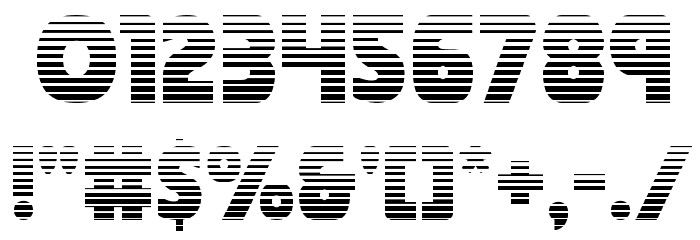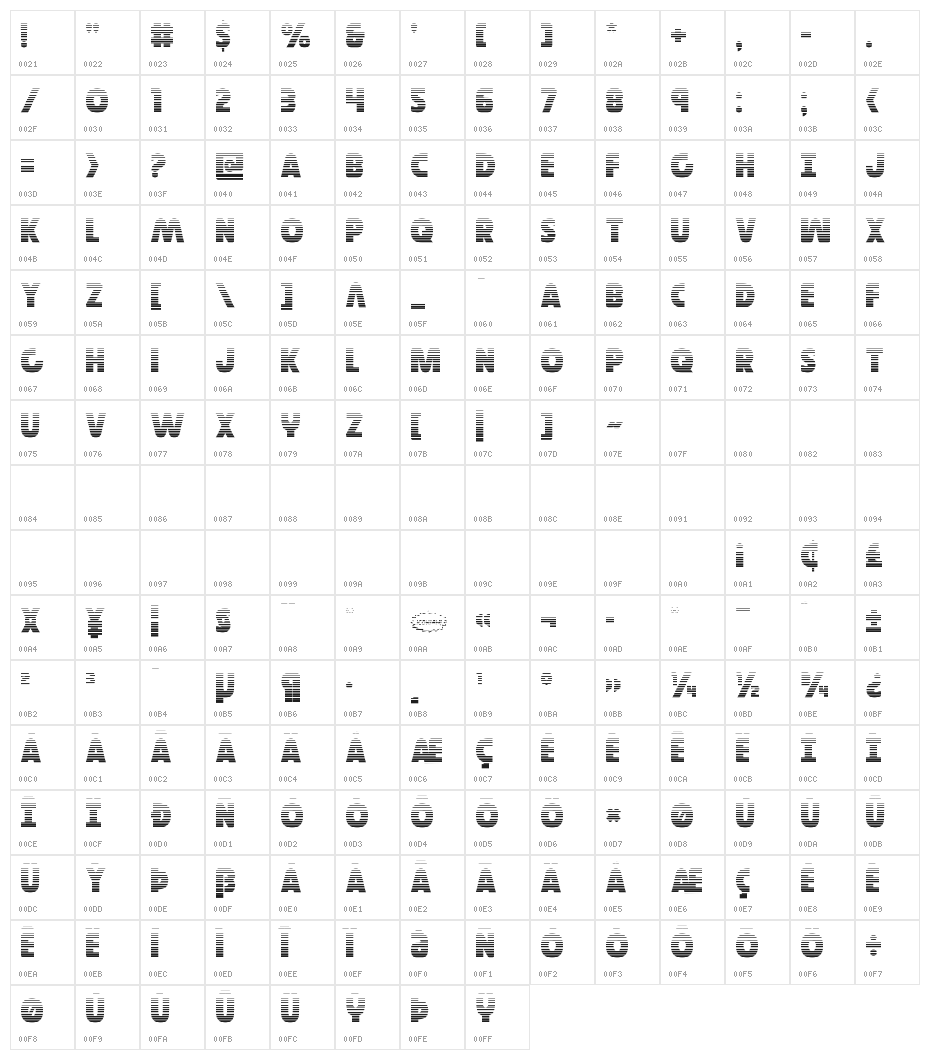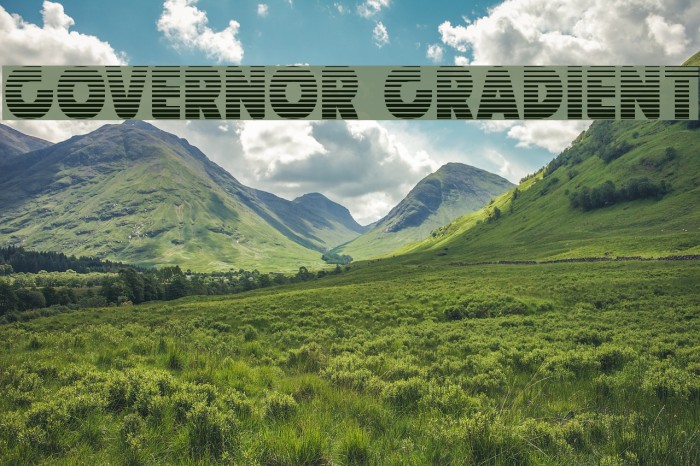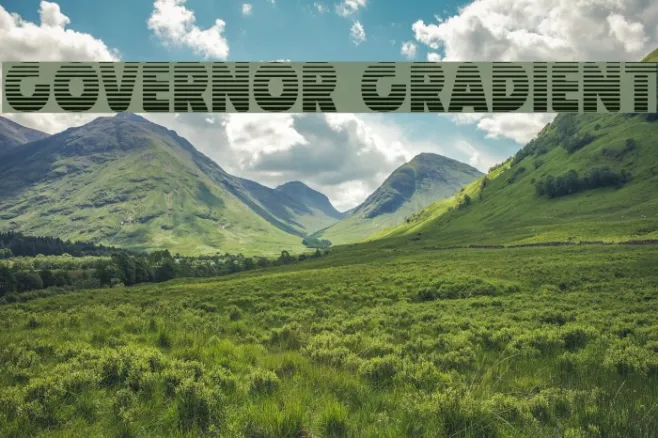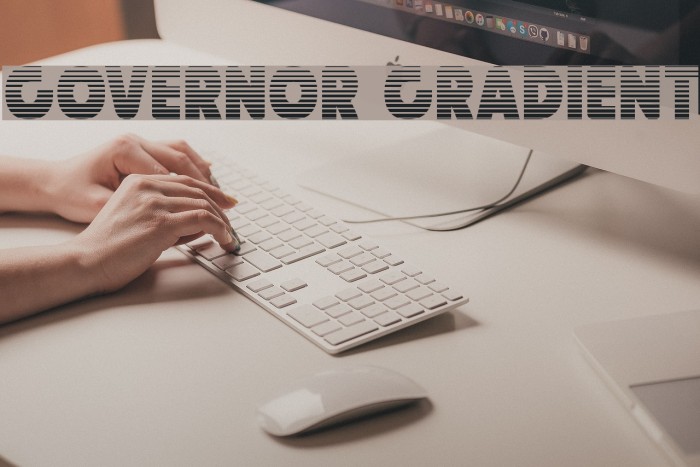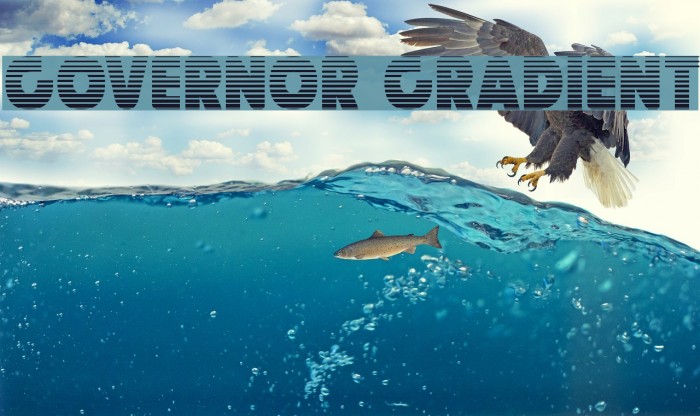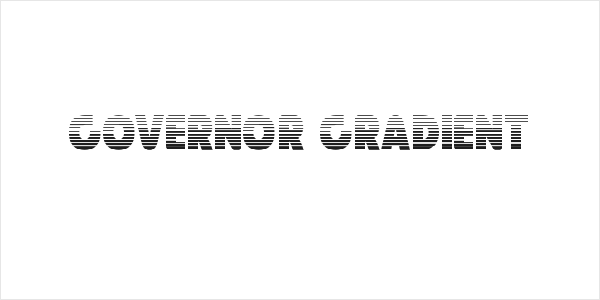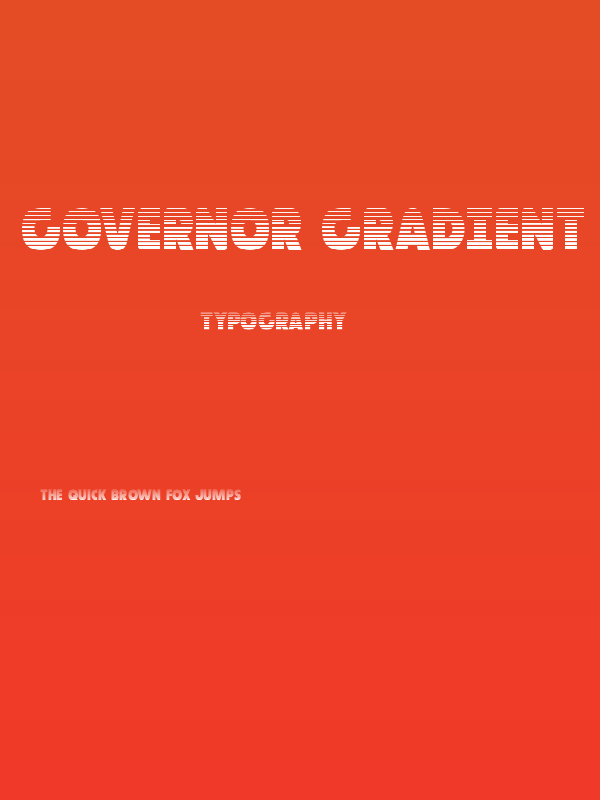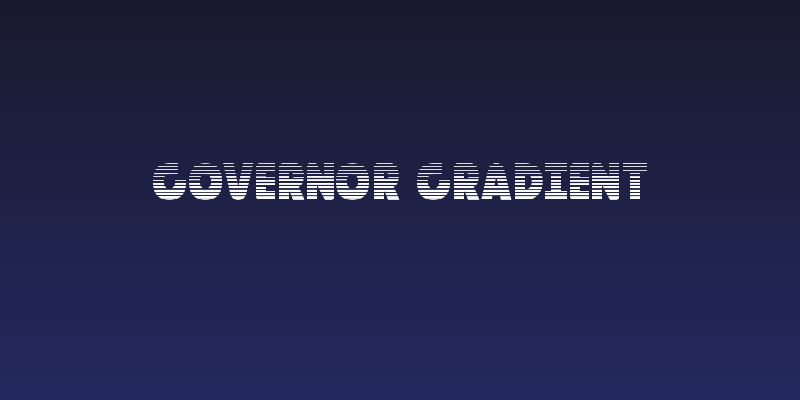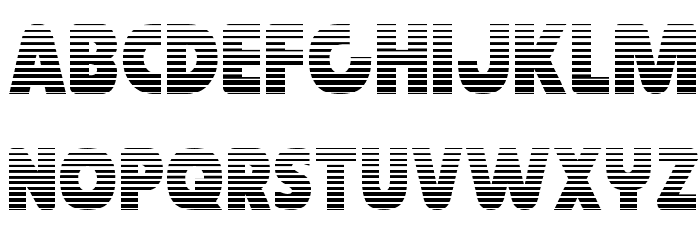
Governor Gradient Font
Governor Gradient Description
This font features a unique design with horizontal lines cutting through each character, creating a gradient-like effect. The bold, geometric shapes are consistent across both uppercase and lowercase letters, as well as numbers and special characters. The horizontal lines give the font a dynamic and modern appearance, making it stand out in any design. The characters are evenly spaced, ensuring readability despite the intricate design. This font is ideal for projects that require a bold statement or a futuristic aesthetic.
| Proposed Projects | Ideal for posters, album covers, branding, and any design needing a futuristic or bold statement. |